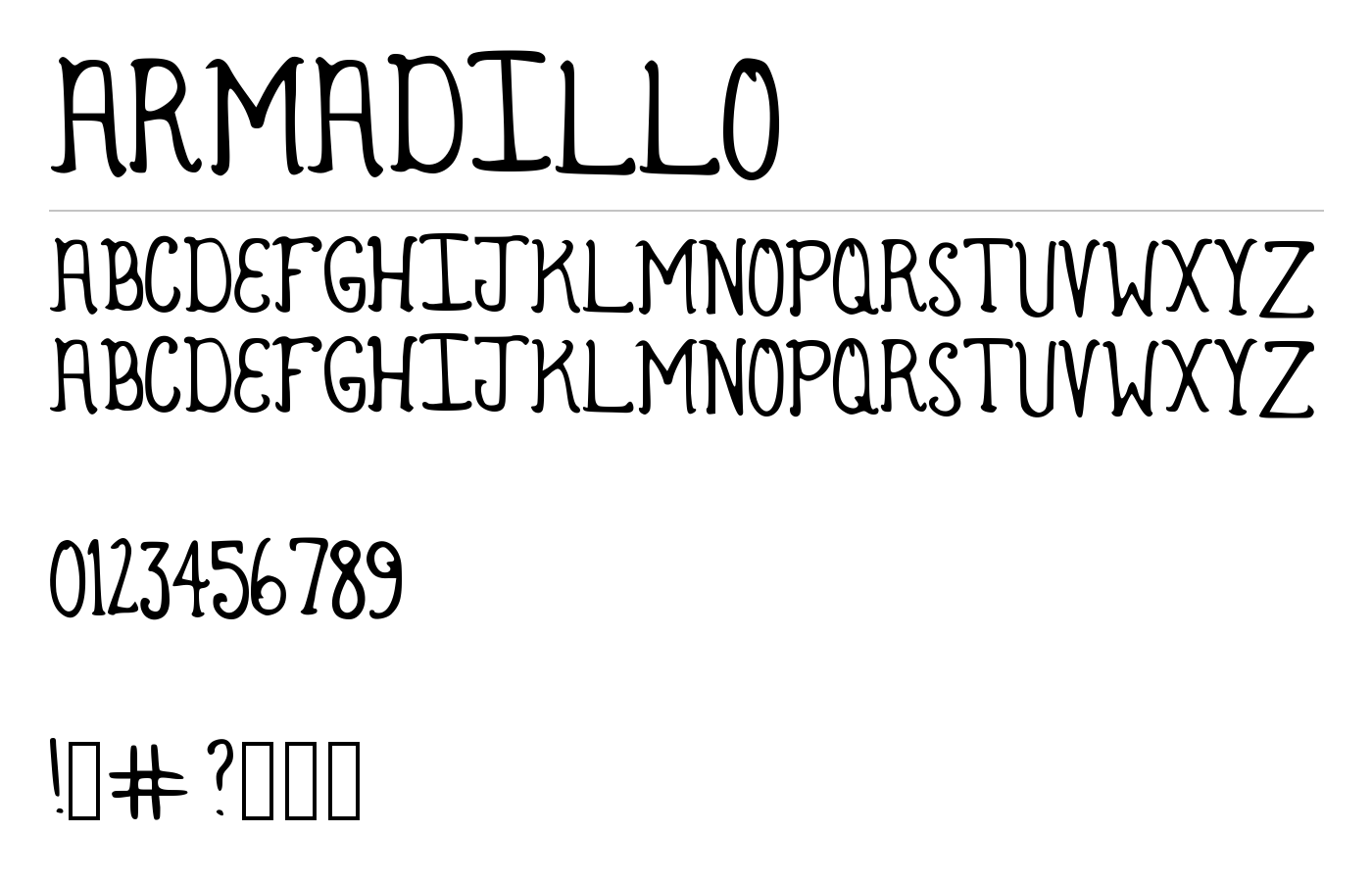
Armadillo is a whimsical and playful sans serif font characterized by its tall, narrow letterforms with irregular stroke widths and subtle rounded edges. Its hand-drawn, slightly quirky style gives it a friendly and approachable feel, making it ideal for creative projects, children’s books, and casual branding where a lighthearted, informal tone is desired. This font works best in headlines and display uses where its unique personality can stand out and add charm.
Armadillo Font
About Armadillo Font